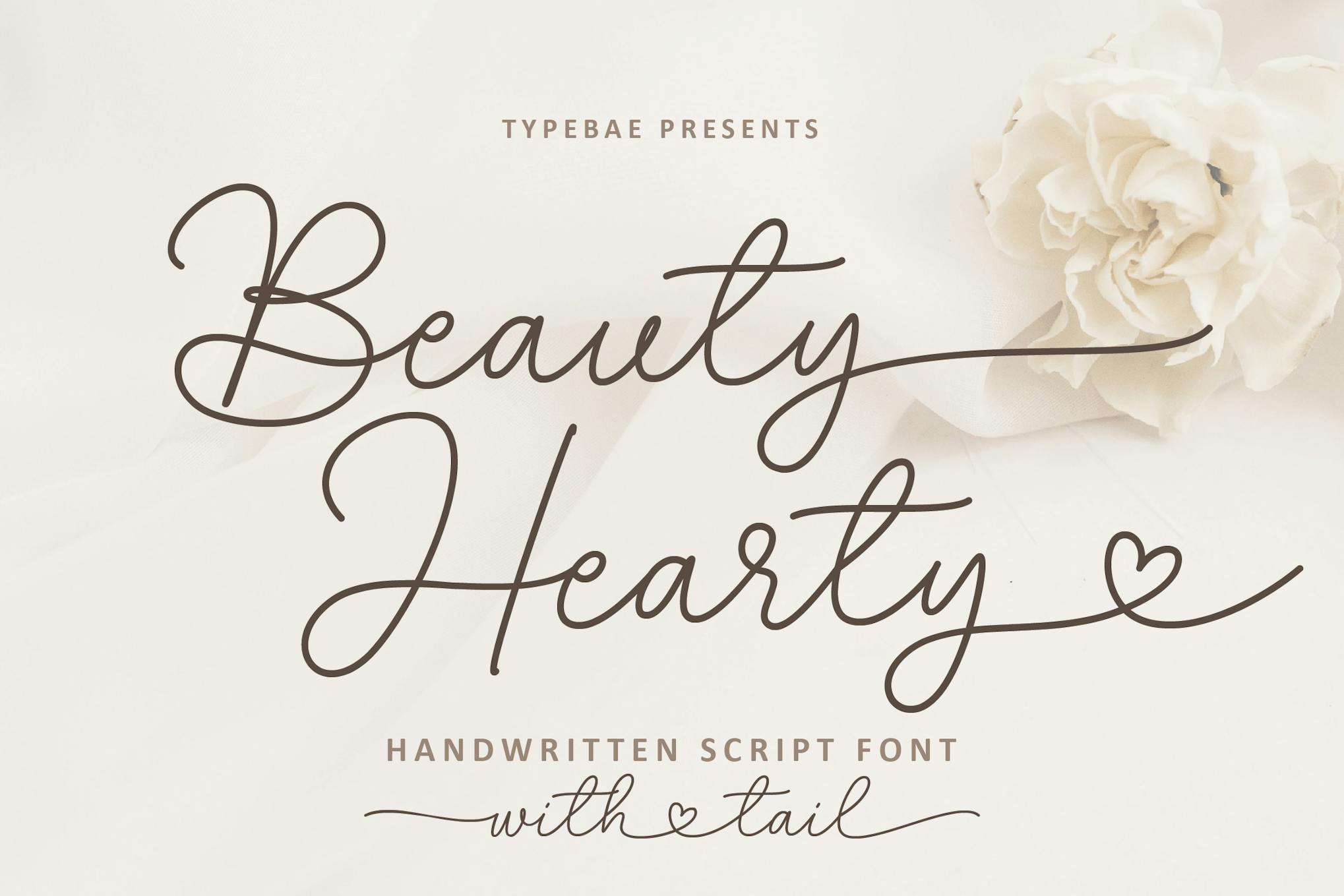
Beauty Hearty - Handwritten Font with Heart Swash
The Beauty Hearty - Handwritten Font with Heart Swash is perfect for romantic wedding stationery, love-themed greeting cards, Valentine's Day promotions, beauty salon branding, romantic blog headers, heartfelt social media graphics, intimate personal letters, love story book covers, romantic restaurant menus, and sweet anniversary celebrations.
What makes the Beauty Hearty - Handwritten Font with Heart Swash so exciting is its enchanting combination of elegant handwritten flow with adorable heart-shaped decorative elements that create an irresistibly romantic and charming visual experience. This delightful typeface features graceful letter connections, organic handwriting rhythm, and specially designed heart swashes that add a touch of love and sweetness to every word. The font's romantic personality and heartfelt charm make it an exceptional choice for projects seeking to communicate love, affection, and genuine emotional connection with authentic handcrafted beauty.
The Beauty Hearty - Handwritten Font with Heart Swash family includes romantic alternates and heart decorations, featuring multiple heart swash options, connecting ligatures, and sweet ornamental elements. Each variation maintains the signature romantic handwritten appeal while offering different levels of decorative hearts and loving flourishes, giving designers extensive creative possibilities for crafting heartfelt messages and romantic expressions.
This exceptional Beauty Hearty - Handwritten Font with Heart Swash Free Download represents the ideal romantic typography choice for designers who want to infuse their projects with genuine love and handcrafted sweetness. Whether you're creating wedding materials, developing romantic brand identities, or designing heartfelt personal communications, this versatile romantic font delivers touching results that resonate with audiences seeking authentic emotional expression and loving connections.
The charming handwriting characteristics of Beauty Hearty - Handwritten Font with Heart Swash showcase masterful romantic script design, with each letter carefully crafted to flow naturally while incorporating delightful heart elements that enhance its loving appeal. The font's comprehensive character set includes uppercase and lowercase letters, numerals, romantic punctuation, and special heart symbols, ensuring complete functionality for diverse romantic projects and international love communications.
Perfectly designed for both digital and print romantic applications, this beautiful font maintains its handwritten charm and heart-filled character across various sizes and formats. From large-scale romantic signage to intimate love notes, Beauty Hearty - Handwritten Font with Heart Swash adapts gracefully to any romantic design challenge while preserving its distinctive loving personality and sweet handcrafted appeal.